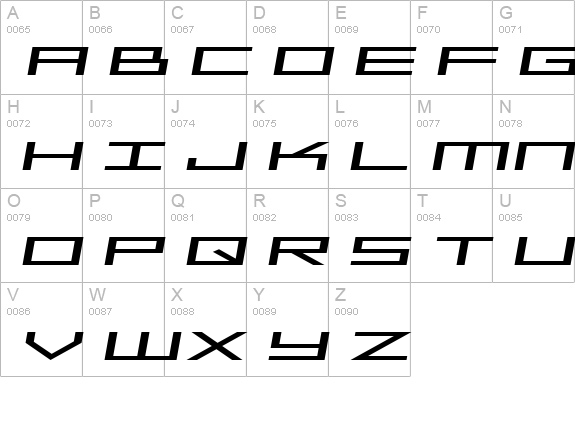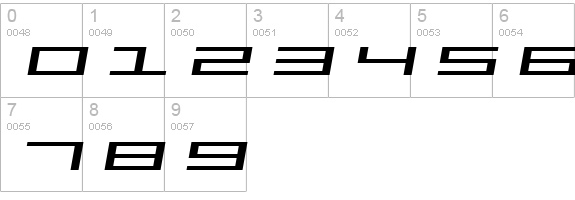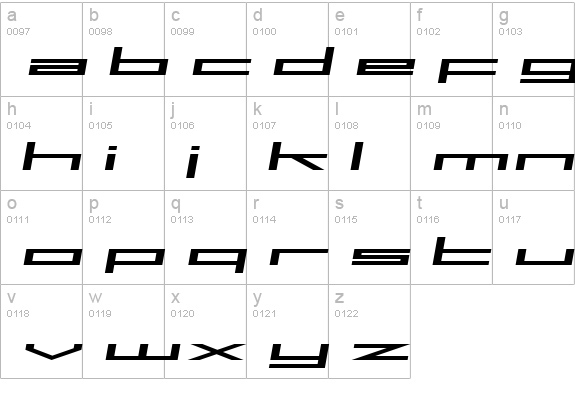
SF Square Head Extended Italic Font Details
SF Square Head Extended Italic is a distinctive, extended-width, italic variant in the SF typeface family \xE2\x80\x94 well suited to design and typography projects.
SF Square Head Extended Italic font is a visually striking and modern typeface that is sure to capture attention. Its unique angular shapes and extended letterforms give it a bold and futuristic appearance, making it perfect for a wide range of creative projects. The extended italic style adds a touch of elegance and sophistication to the font, allowing it to stand out even more. It creates a sense of movement and dynamism, making it ideal for designs that require a strong visual impact. One of the best things about SF Square Head Extended Italic font is that it is free to use. You can easily download it from FontsMarket.com, a trusted source for high-quality fonts. This means that you can add this stunning typeface to your collection without having to spend a dime. Whether you're designing a logo, creating a poster, or working on a website, SF Square Head Extended Italic font will surely elevate your design. Its versatility and unique aesthetic make it suitable for both digital and print projects. With SF Square Head Extended Italic font, you have the freedom to experiment and create designs that are truly one-of-a-kind. Its bold and futuristic appearance will make your work stand out from the crowd and leave a lasting impression on your audience. So why wait? Download SF Square Head Extended Italic font today from FontsMarket.com and unlock its full potential. With its striking visual appeal and the versatility it offers, this font is a must-have for any designer looking to make a bold statement.